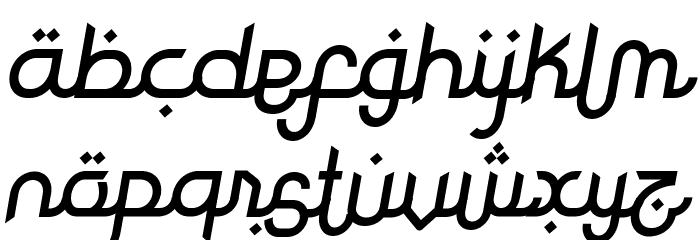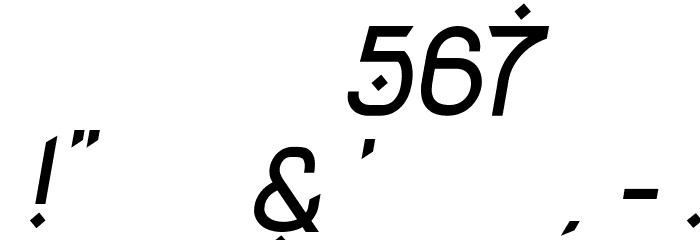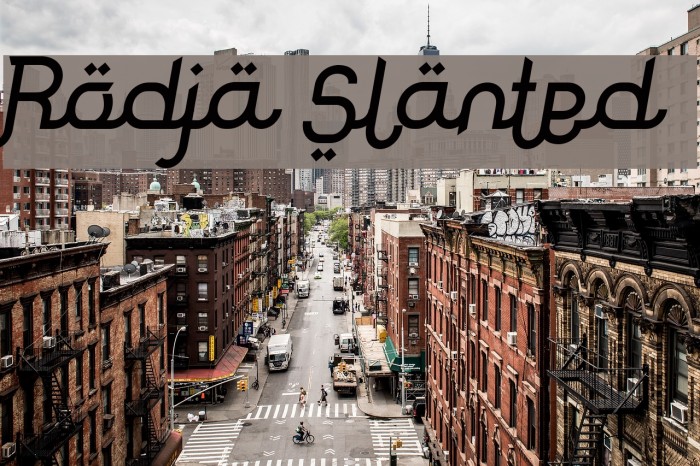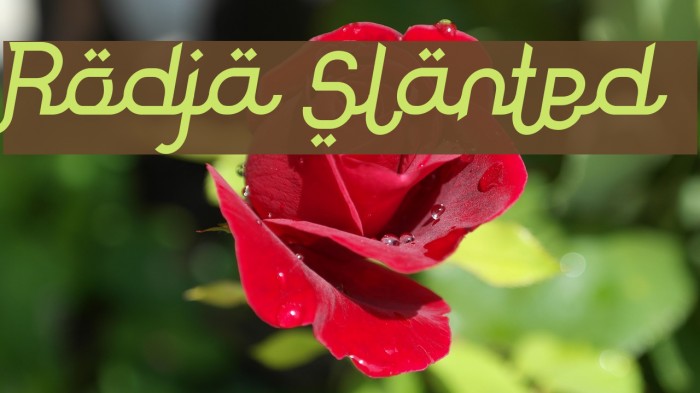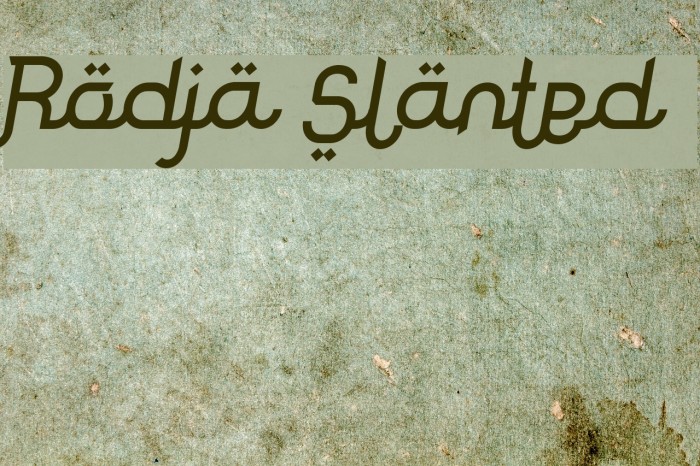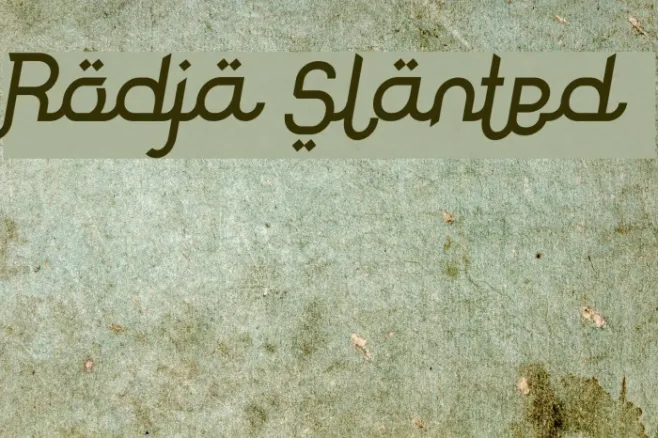
Rodja Slanted Font
This font features a dynamic and flowing script style with a distinct slant, giving it a sense of motion and elegance. The characters are interconnected with smooth curves and loops, creating a cohesive and stylish appearance. The uppercase letters maintain a consistent height, while the lowercase letters exhibit a playful yet sophisticated design. The numbers are bold and clear, ensuring readability. Special characters are integrated seamlessly, maintaining the overall aesthetic. This font's unique style makes it suitable for creative and expressive design projects.
A dynamic, slanted script font with flowing, interconnected characters.
- Proposed Projects: Ideal for branding, invitations, greeting cards, and artistic posters.
- Category: Script
- Use Case: Logos, Headlines, Artistic designs